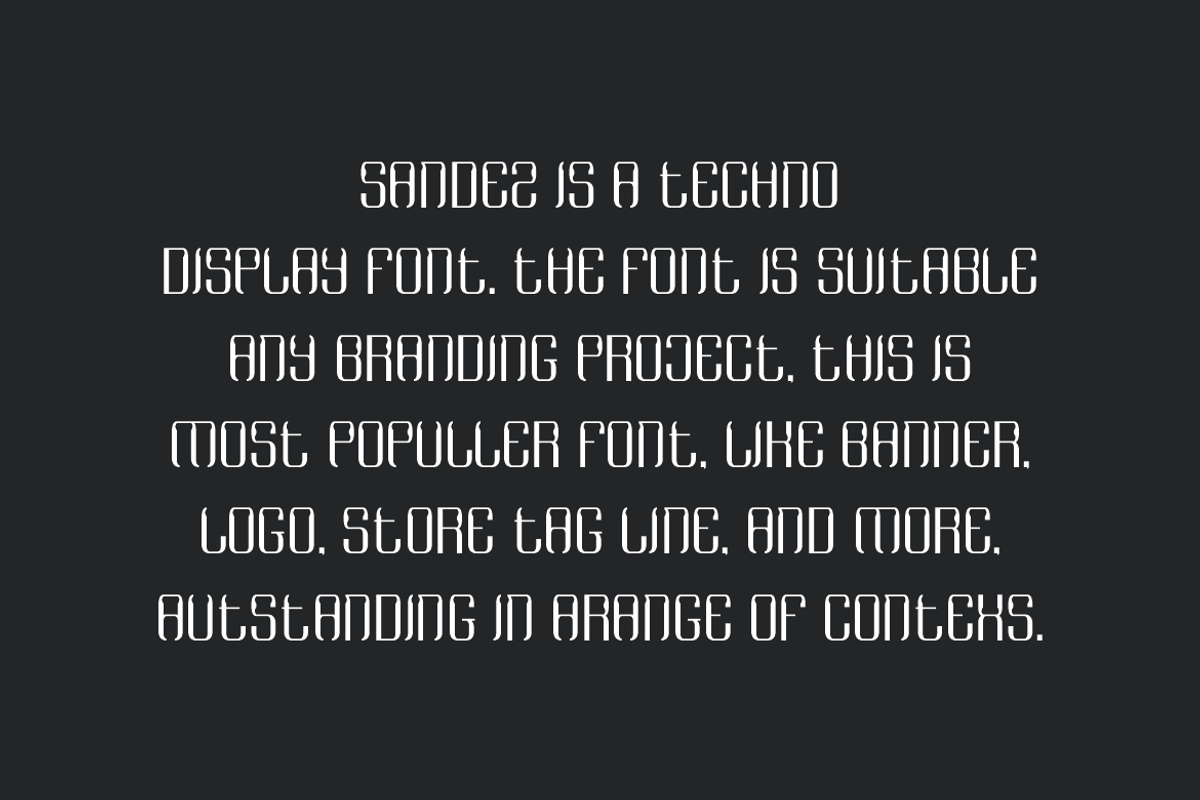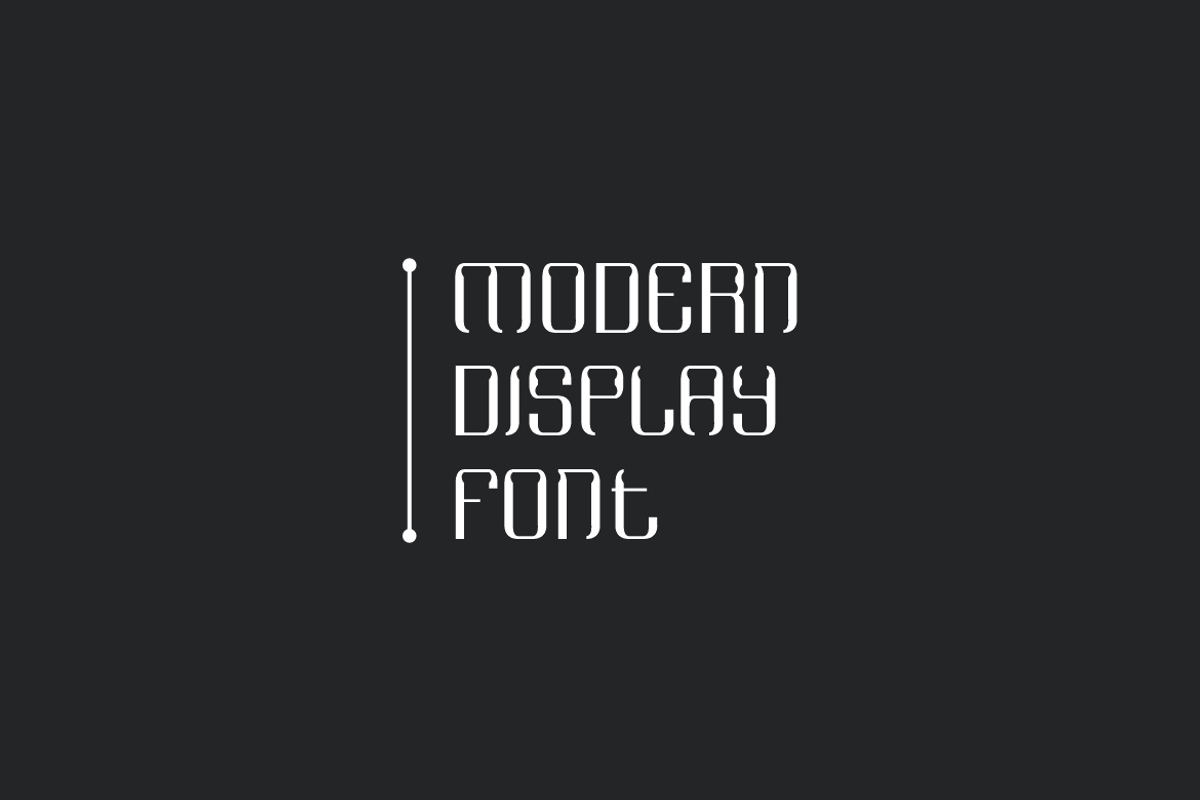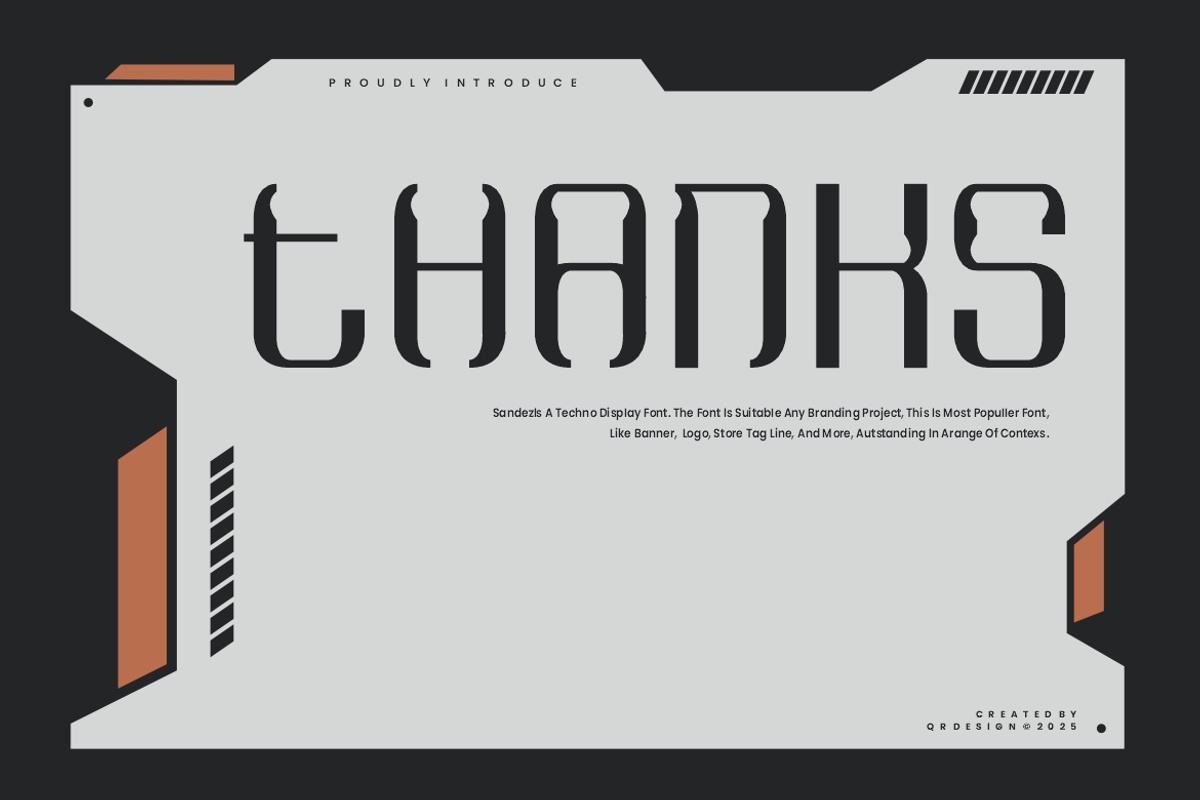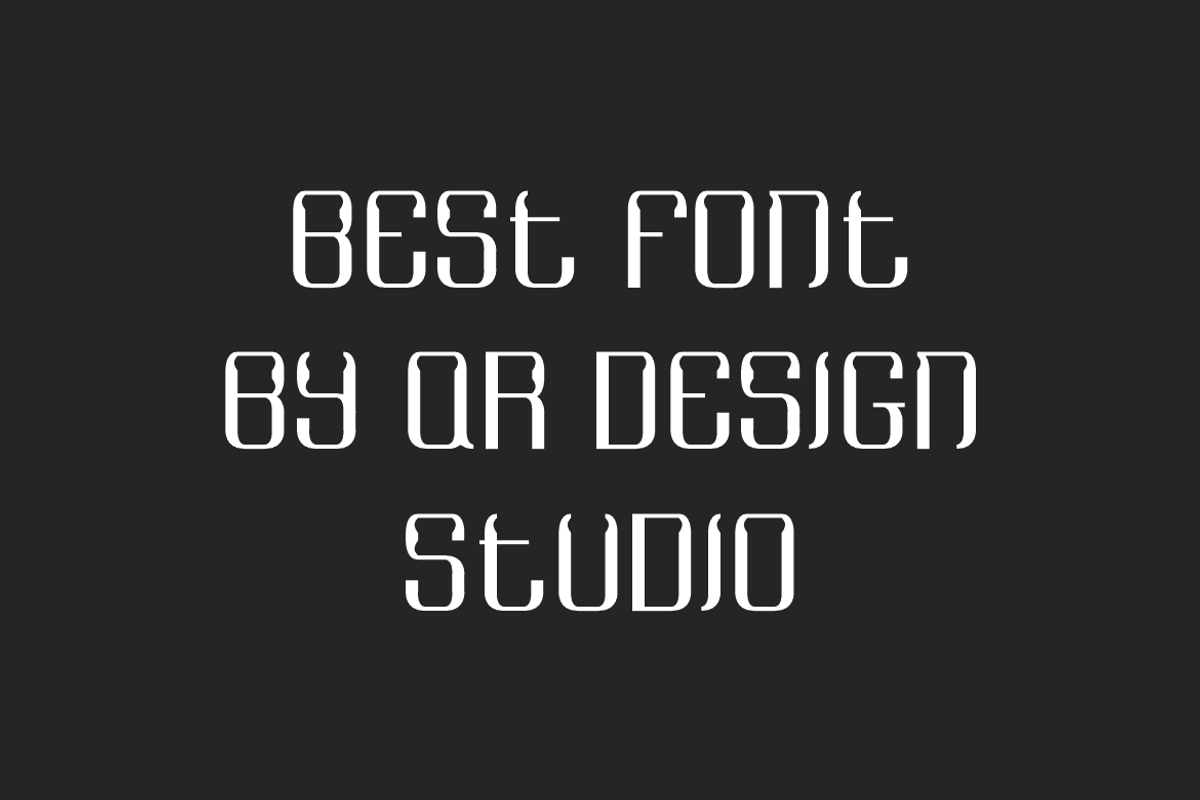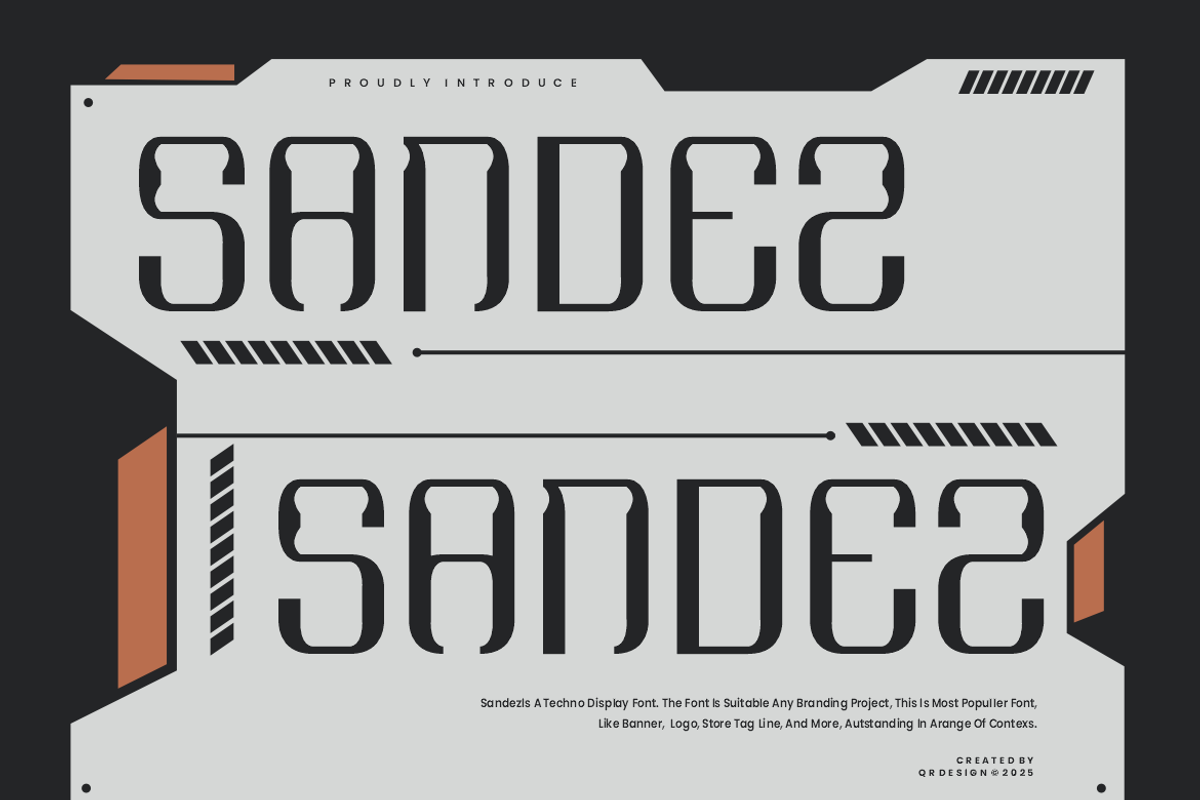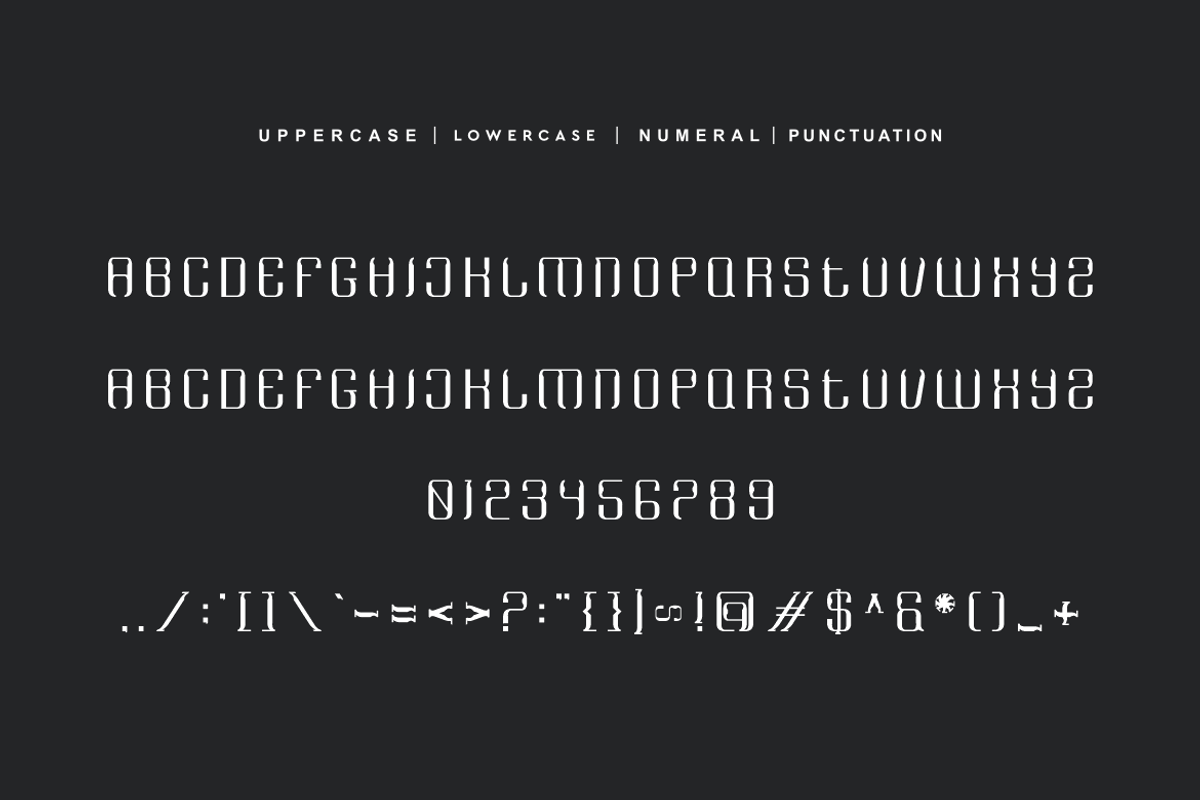
Sandez - Techno Font
Sandez Font is a futuristic and authentic display font. The font is suitable for any branding project like poster, logo, sport, and many more. Outstanding in a wide range of contexts.